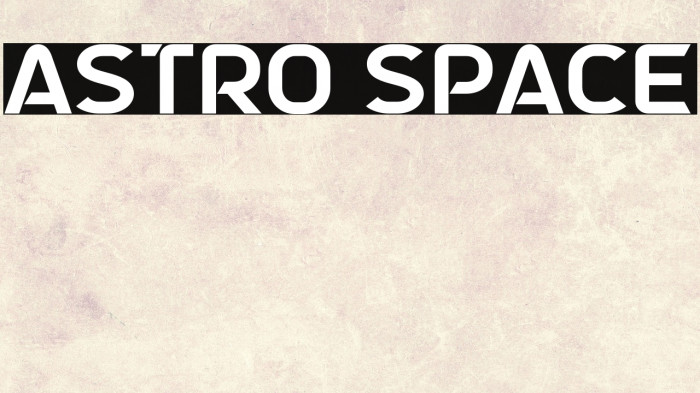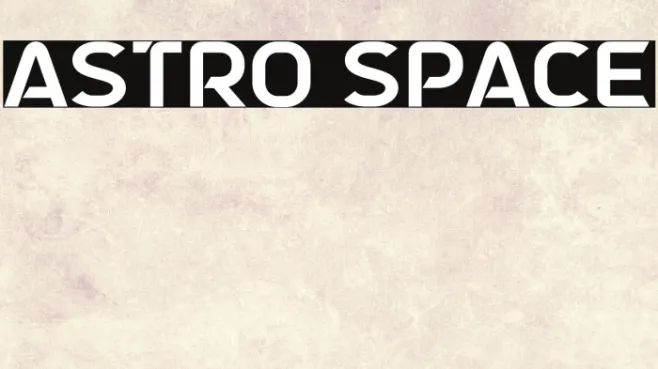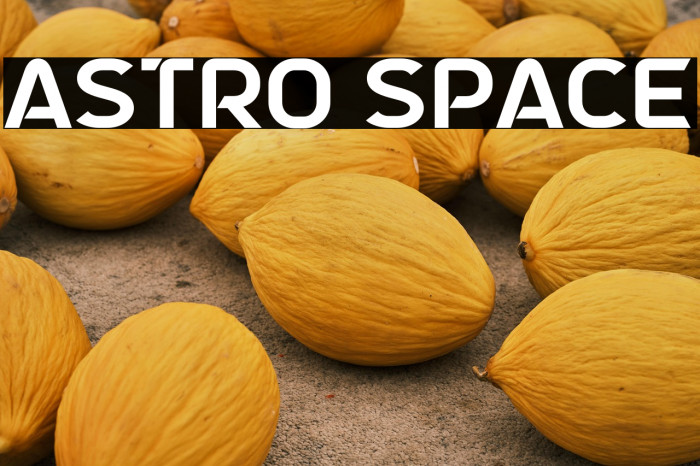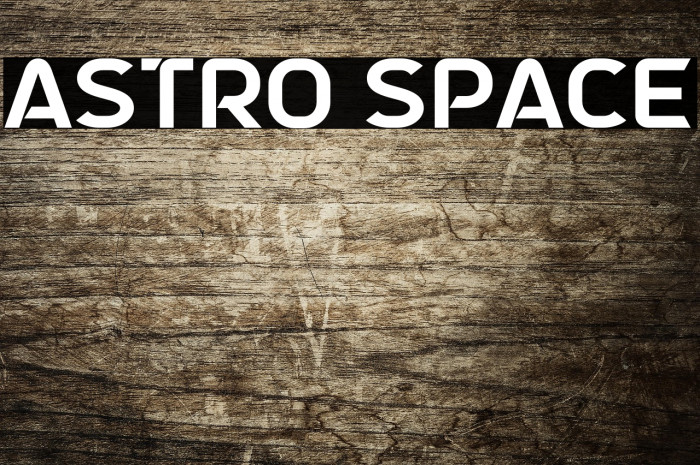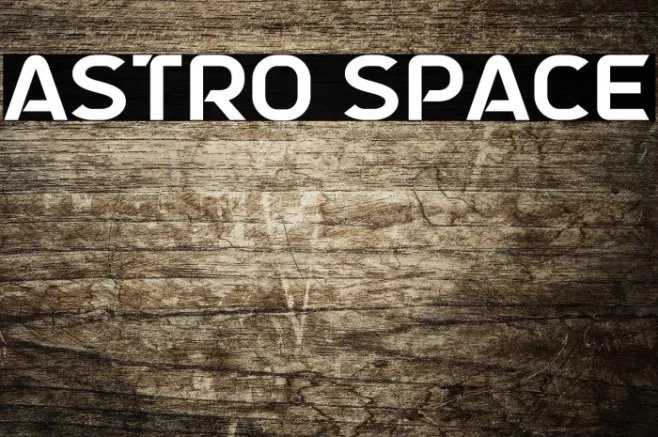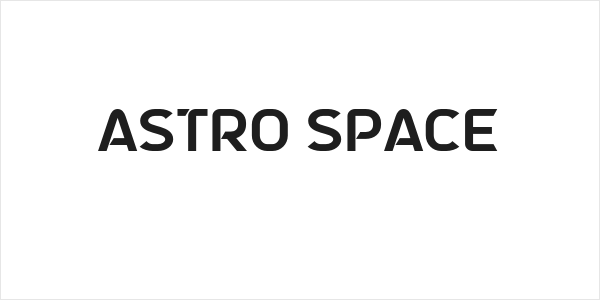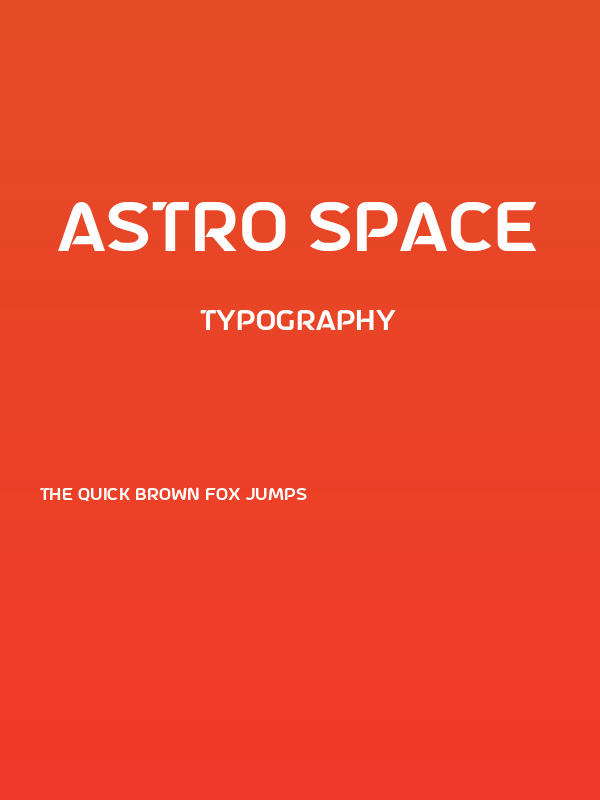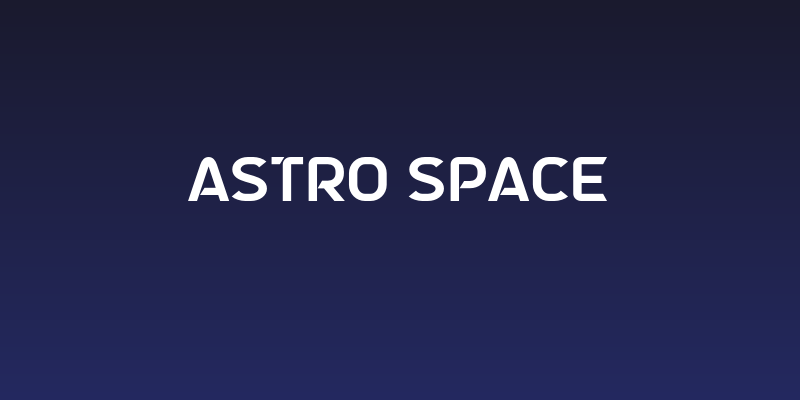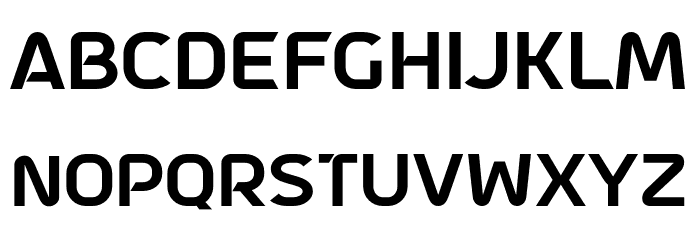
Astro Space Font
Astro Space Description
This font features a futuristic and geometric design, characterized by its bold and angular letterforms. The uppercase and lowercase letters maintain a consistent style, with sharp edges and a modern aesthetic. The numerals are equally bold, ensuring readability and uniformity across different uses. Special characters are designed to complement the overall style, making the font versatile for various applications. Its clean lines and distinct shapes make it suitable for projects that require a contemporary and tech-inspired look.
| Proposed Projects | Ideal for technology branding, sci-fi movie posters, video game interfaces, and modern advertising campaigns. |